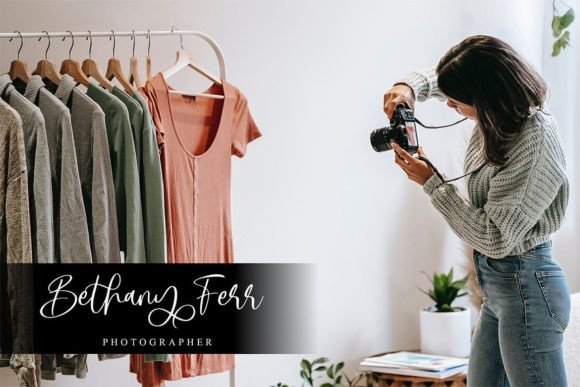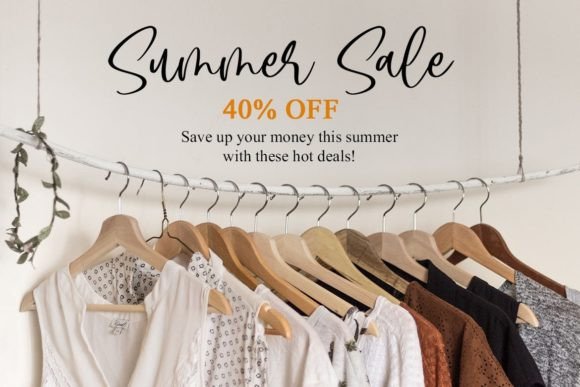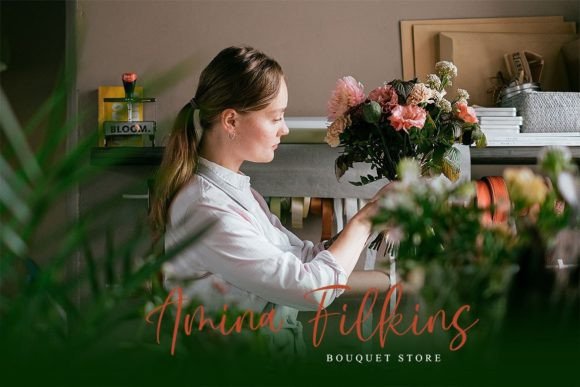
Introduction to Margarete Font
As a designer, there’s nothing quite like the thrill of bringing a creative project to life. You’re brainstorming ideas, experimenting with different colors, and searching for the perfect font to tie everything together. That’s when you stumble upon it – a font that’s as elegant as it is charming, with a handwritten touch that makes your design truly special. For many designers, that font is the Margarete Font.
Whether you’re working on a wedding invitation, a thank you card, or a logo, the Margarete Font is a valuable resource that can elevate your design to the next level. Its high quality and versatility make it a must-have for any design project, and the best part? It’s available for free download, complete with a transparent background that makes it easy to customize.
Key Features of Margarete Font
- High-quality design resource suitable for creative projects, offering a unique and elegant touch.
Honest Review: Margarete Font
As a designer, I’m always on the lookout for high-quality design resources to elevate my creative projects. The Margarete Font is one such find that has caught my attention. With its elegant and sophisticated design, this font is perfect for a variety of applications, from formal invitations to luxury branding.
What works well with Margarete Font is its high level of detail and nuance. The font is incredibly versatile and can be used for both print and digital media. Its transparent background makes it easy to work with and allows for seamless integration with other design elements.
Here are some of the key features that make Margarete Font stand out:
- High-quality design with intricate details
- Perfect for formal and luxury branding
- Only available in a limited range of weights and styles
- Not ideal for casual or playful projects
Overall, I’m impressed with Margarete Font and would highly recommend it for any design project that requires a touch of sophistication and elegance. ✨
Tips for Getting the Most Out of Margarete Font
To get the most out of Margarete Font, use it in conjunction with other design elements, such as images and graphics. Experiment with different font sizes, colors, and styles to create a unique and eye-catching design. You can also use Margarete Font to create a consistent brand identity across your marketing materials.
Common Use Cases for Margarete Font
Margarete Font is commonly used in a variety of creative projects, including logos, business cards, and brochures. It’s also a great choice for web design, as it’s a high-quality font with a transparent background that’s perfect for overlaying on images.